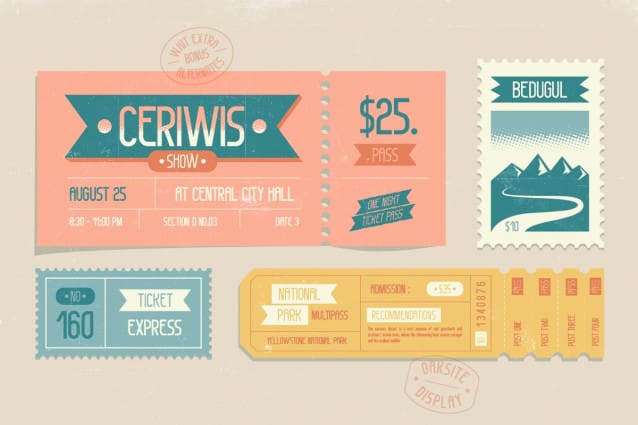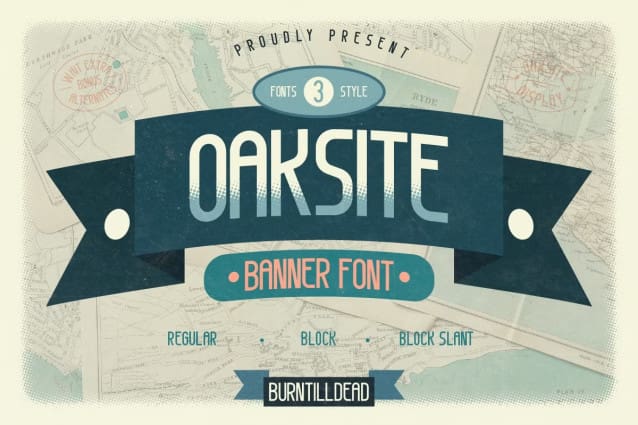
Oaksite Font
Oaksite Font, a simplicity and clean banner font. This font have 3 styles: regular, block and block slant. Ideal for banners that demand a simple and modern feel, this font is your go-to for creating a bold, yet minimalist impact. Perfect for informal and fun project design. Oaksite suitable for banner, poster, logo, merchandise and any other design.